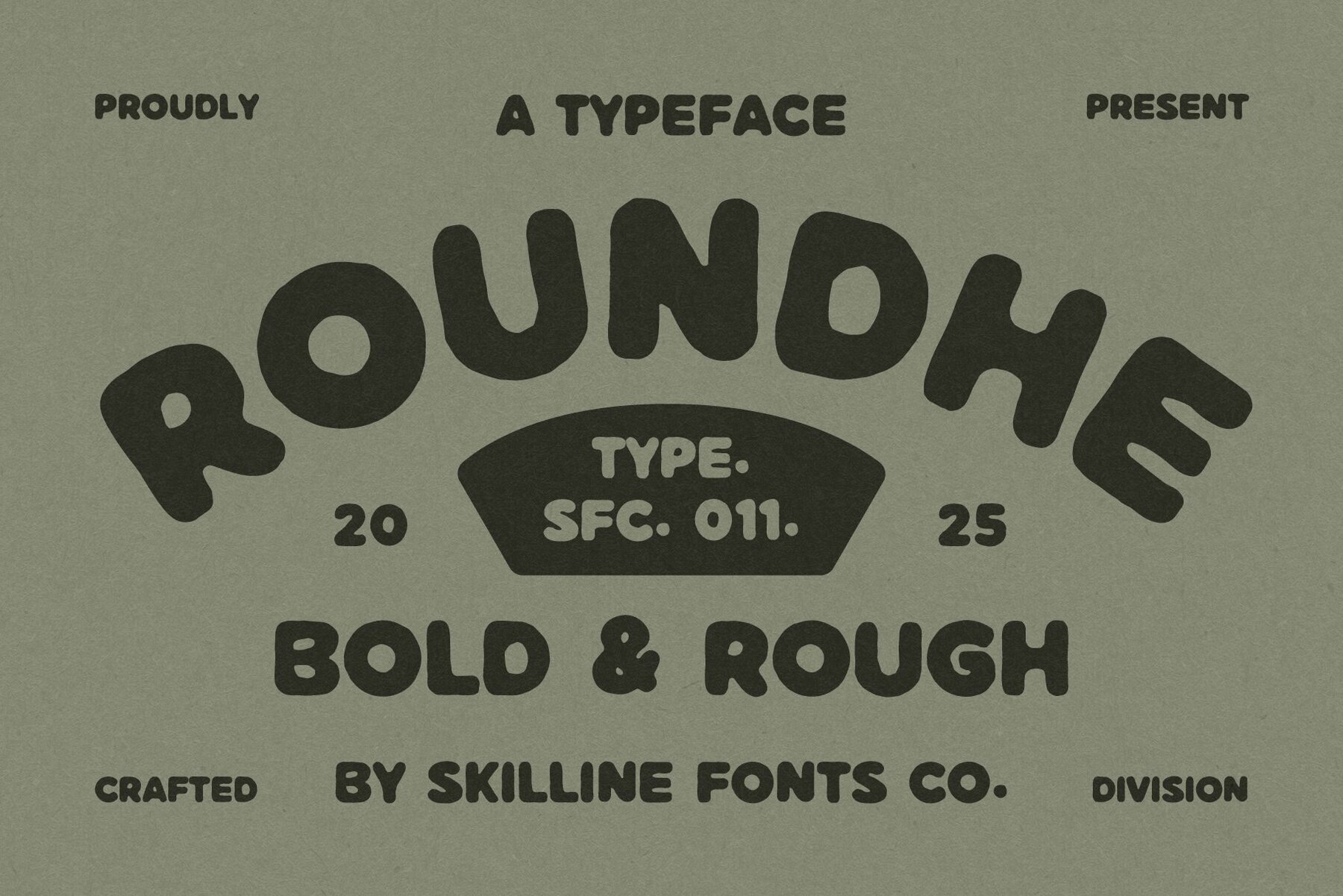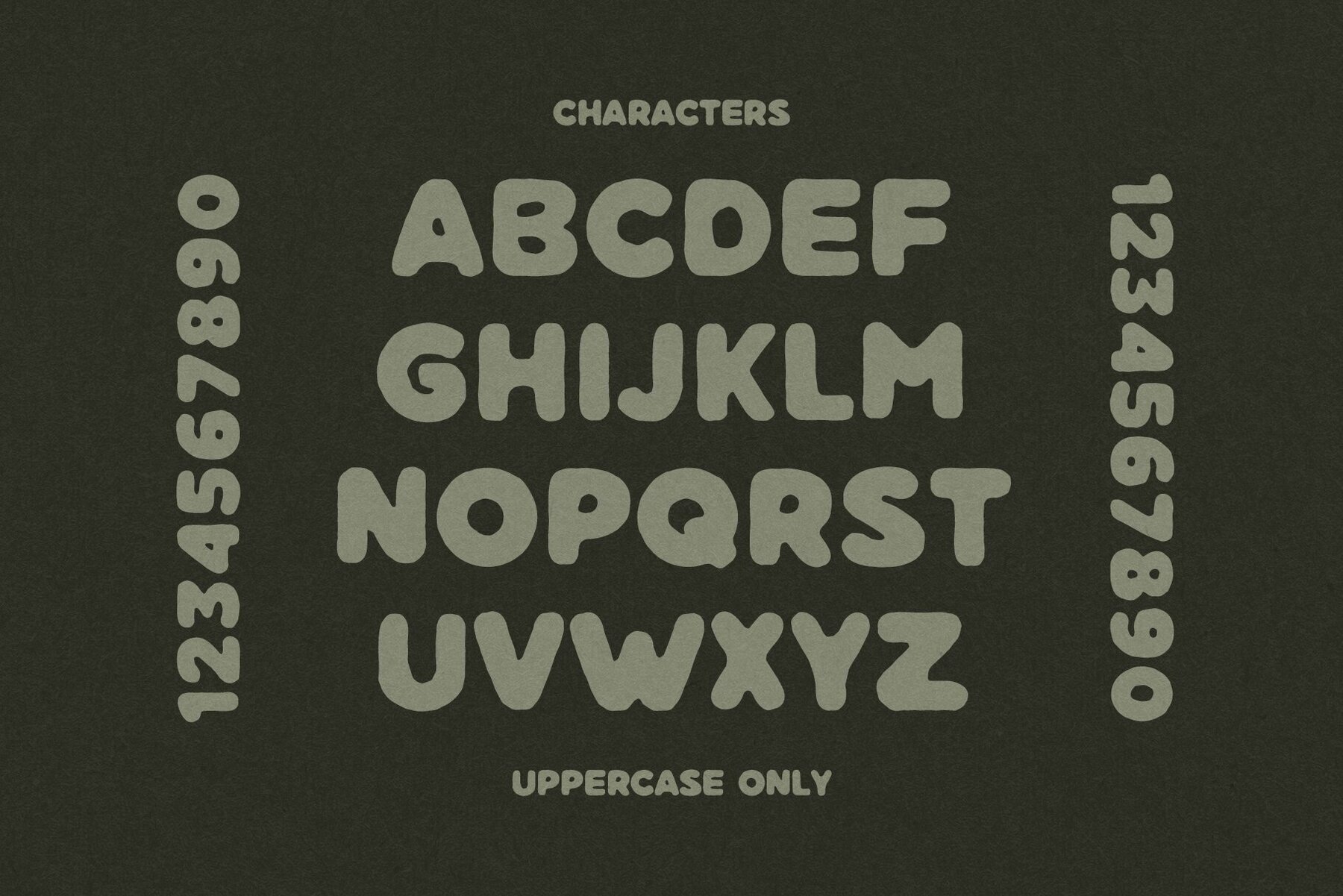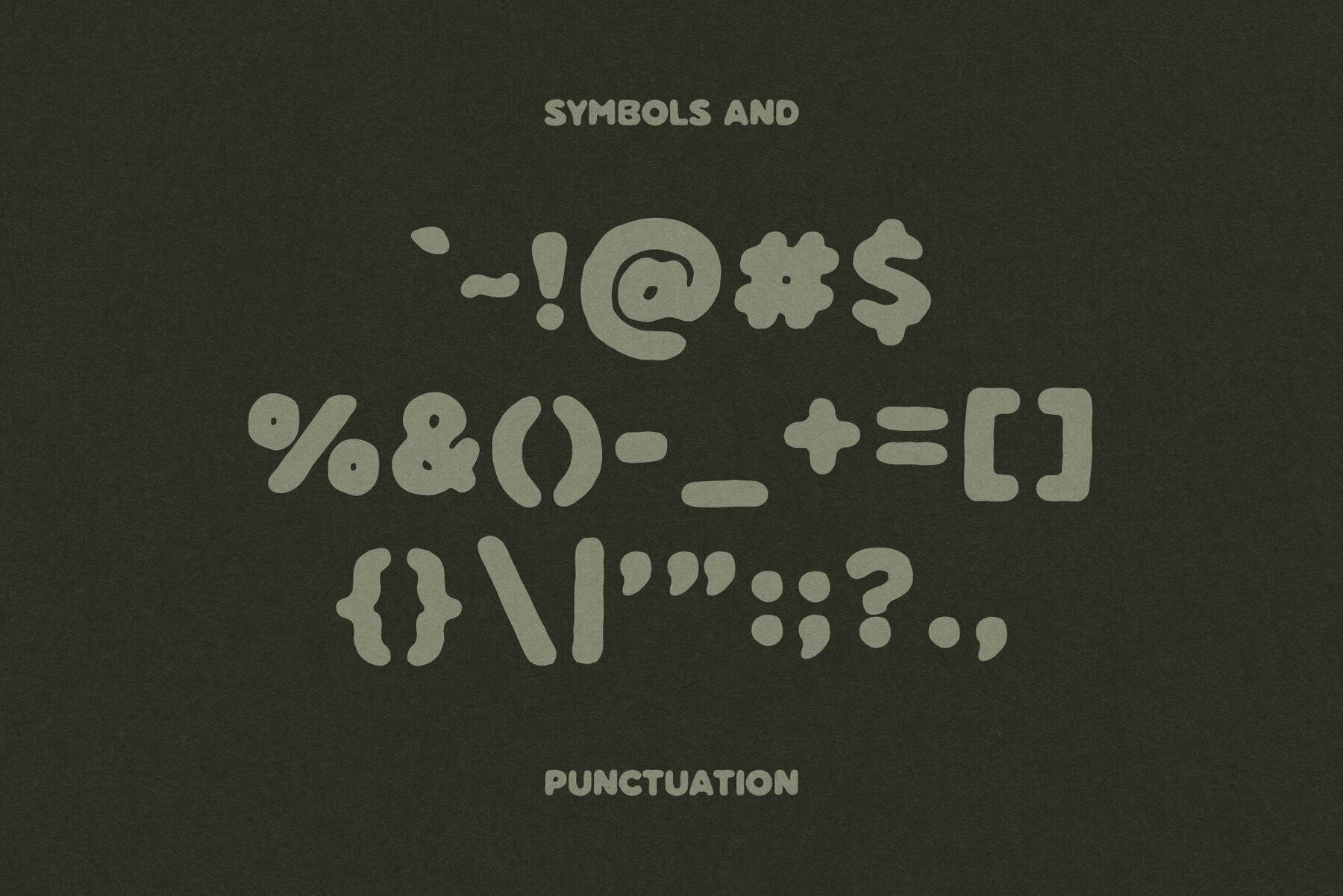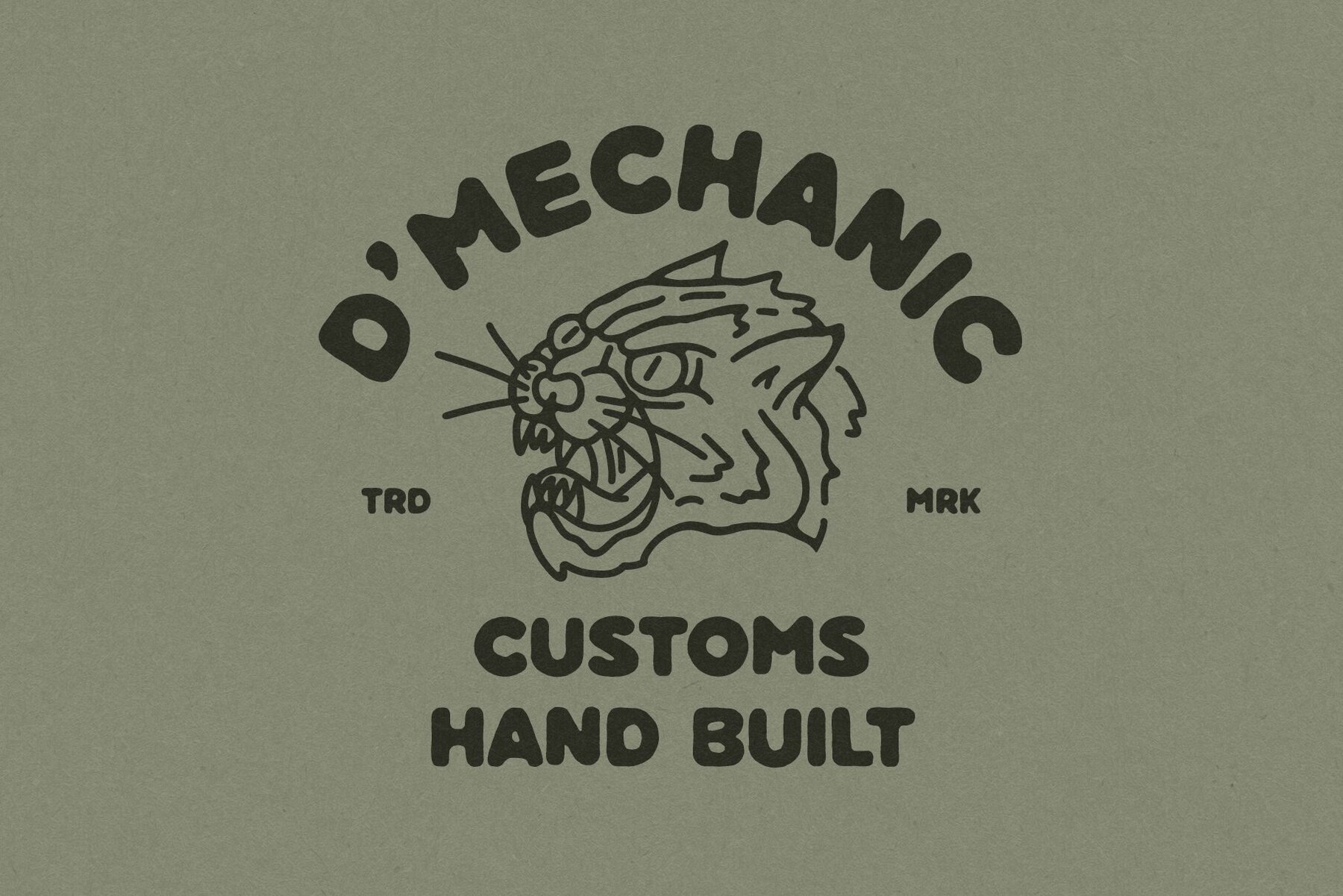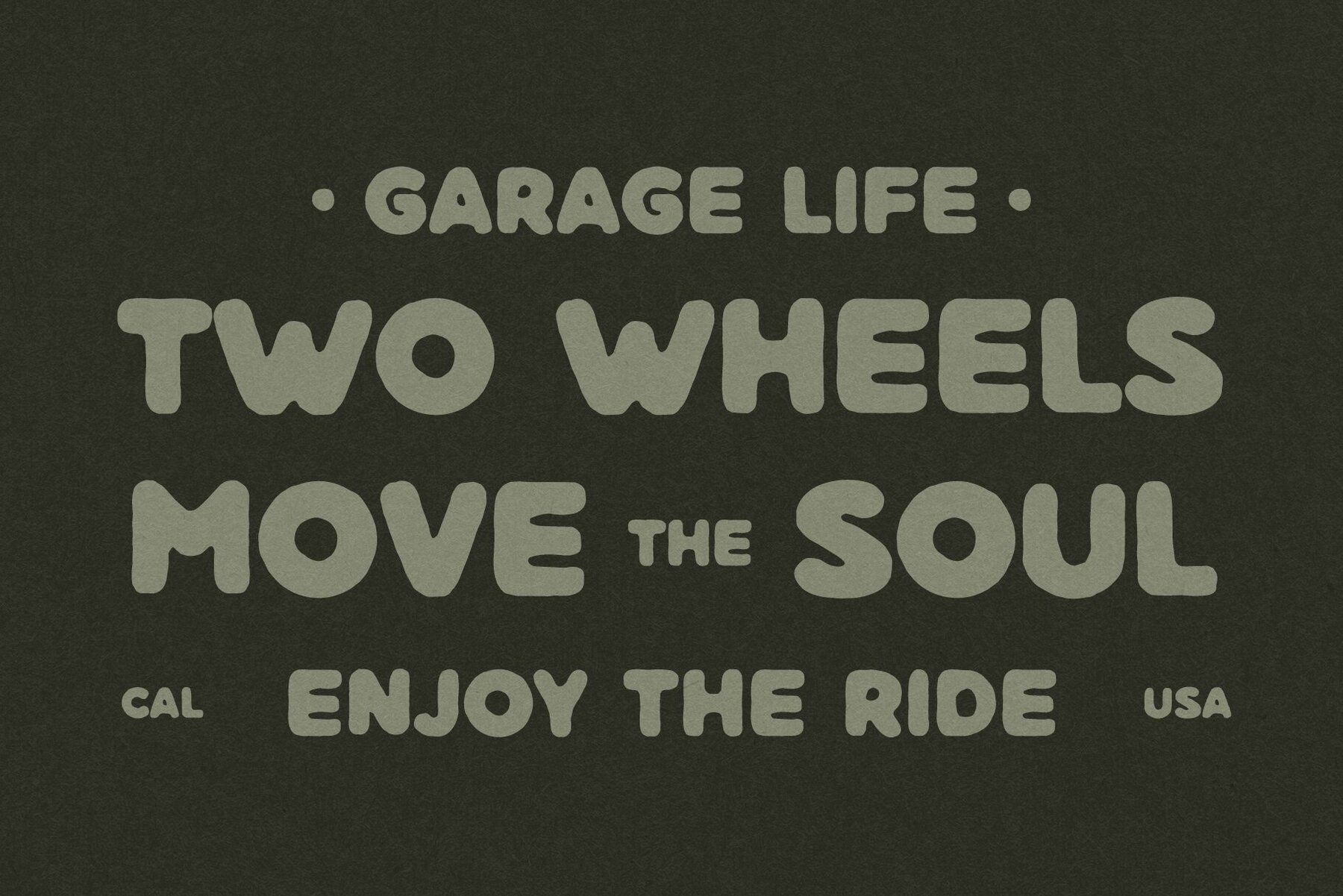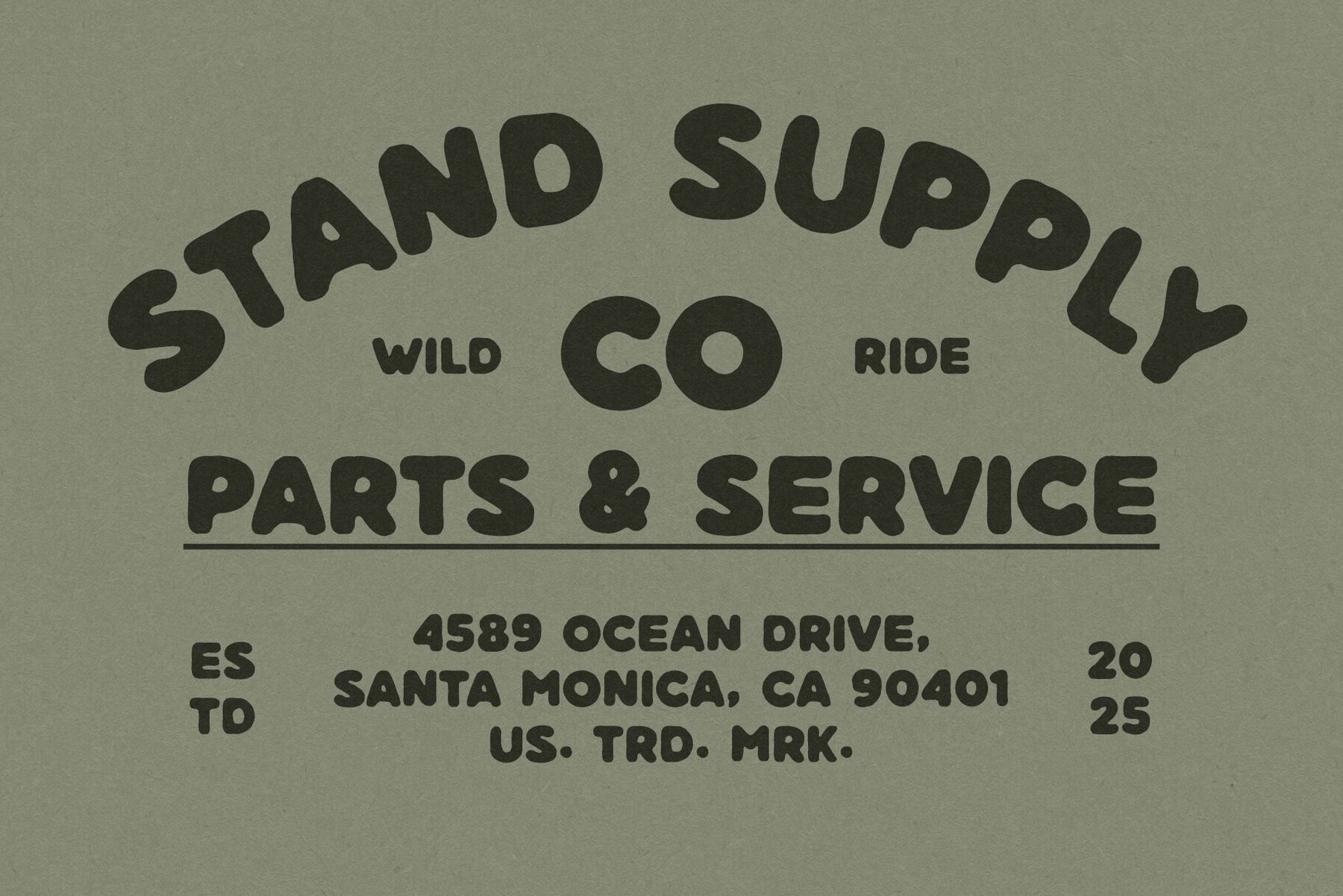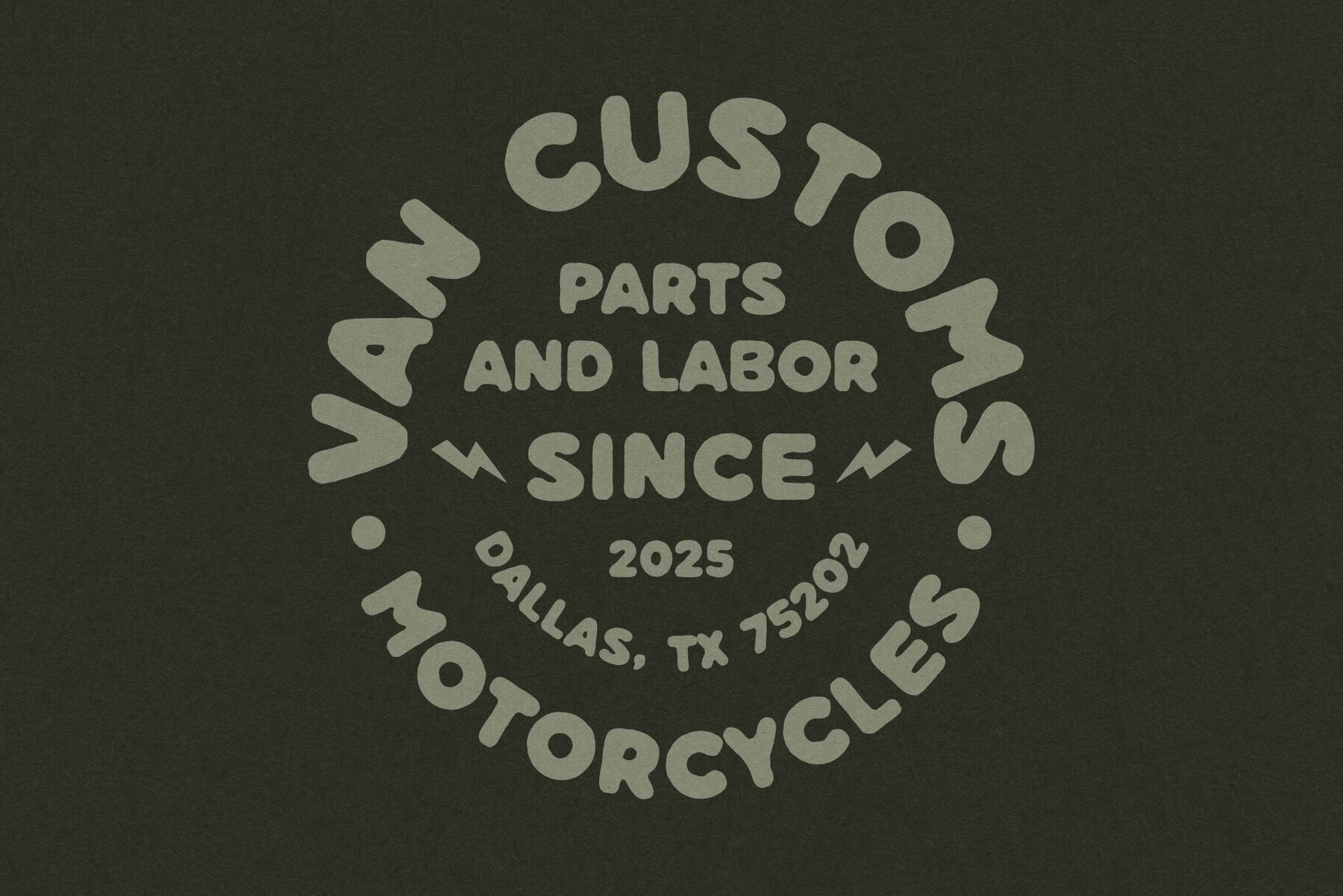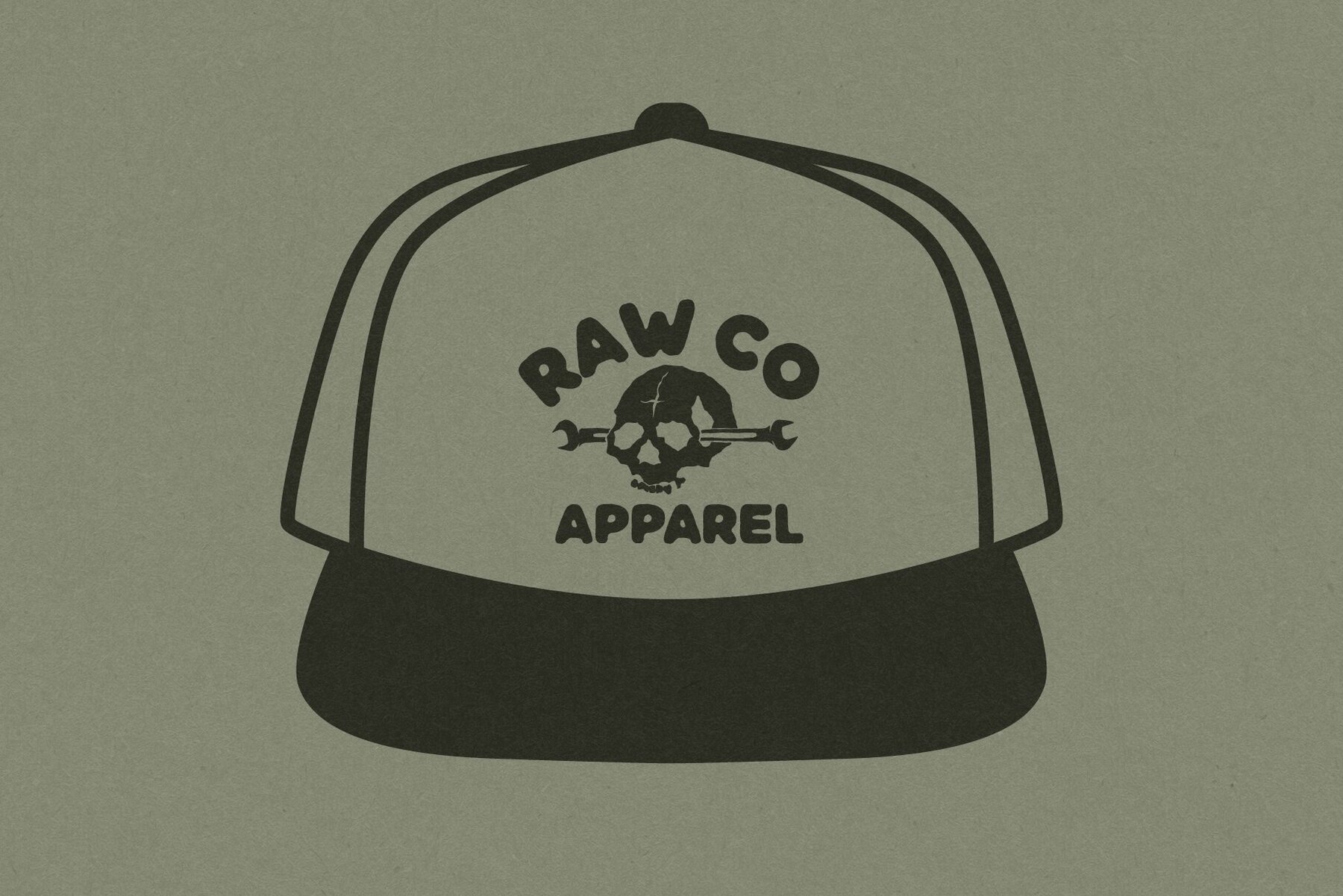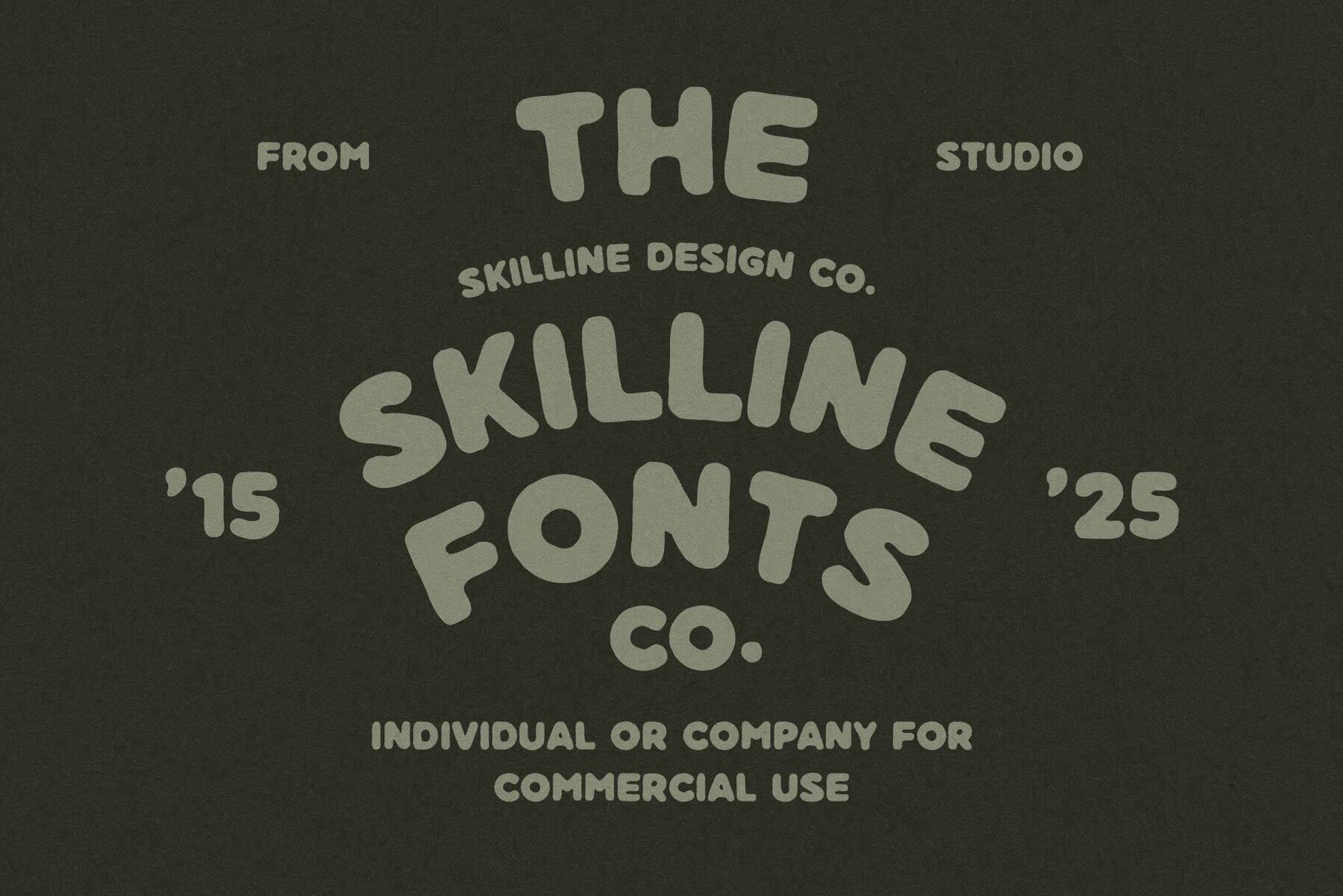
SFC Roundhe Font
SFC Roundhe
Roundhe brings together retro inspiration and handcrafted imperfection for a display font that stands out with personality. Each letter is shaped with intentional rough edges and organic curves, echoing the lively spirit of vintage sign painting and classic bubble lettering. This unique approach gives Roundhe an approachable, nostalgic energy—perfect for modern projects that require both visual impact and authentic charm. The font’s chunky forms, rounded contours, and subtle textured finish create a sense of warmth that feels genuine. This balance of boldness and softness makes Roundhe well-suited to playful branding and creative work. Designers looking for a font that delivers confidence without losing friendliness will find it especially fitting for contemporary visuals seeking a handcrafted touch.Roundhe: Bold, Playful Display Font with Handcrafted Character